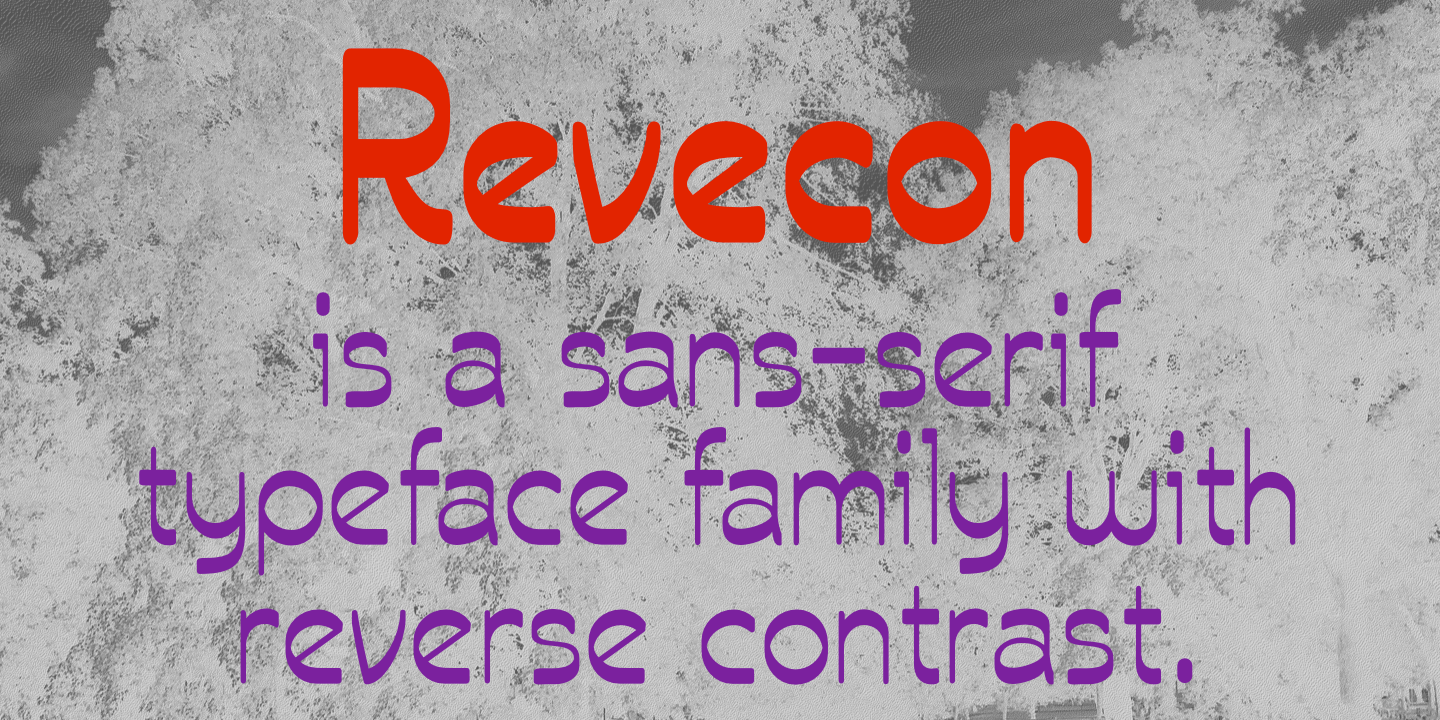
Revecon Extra Bold Back Slanted
Revecon is a retro font family. This typeface has nine styles and was published by Ingrimayne Type.
Revecon is a sans-serif typeface family with reverse contrast (sometimes called inverse contrast), that is, the letters are thick where normally they are thin and vice versa. Serif fonts with reverse contrast were popular in the 19th century for advertising and display purposes. As a result these fonts have an old-fashioned or wild-west look. San-serif fonts with reverse contrast have an uncommon look that is quirky and modernistic. Revecon is legible but seems inappropriate for lengthy text. It can be useful for display purposes such as advertising and similar uses where one wants something simple but a bit unusual and odd.
The Revecon family has three weights with nine styles. Included are three backslanted styles, adding a bit more quirkiness to an already strange family.